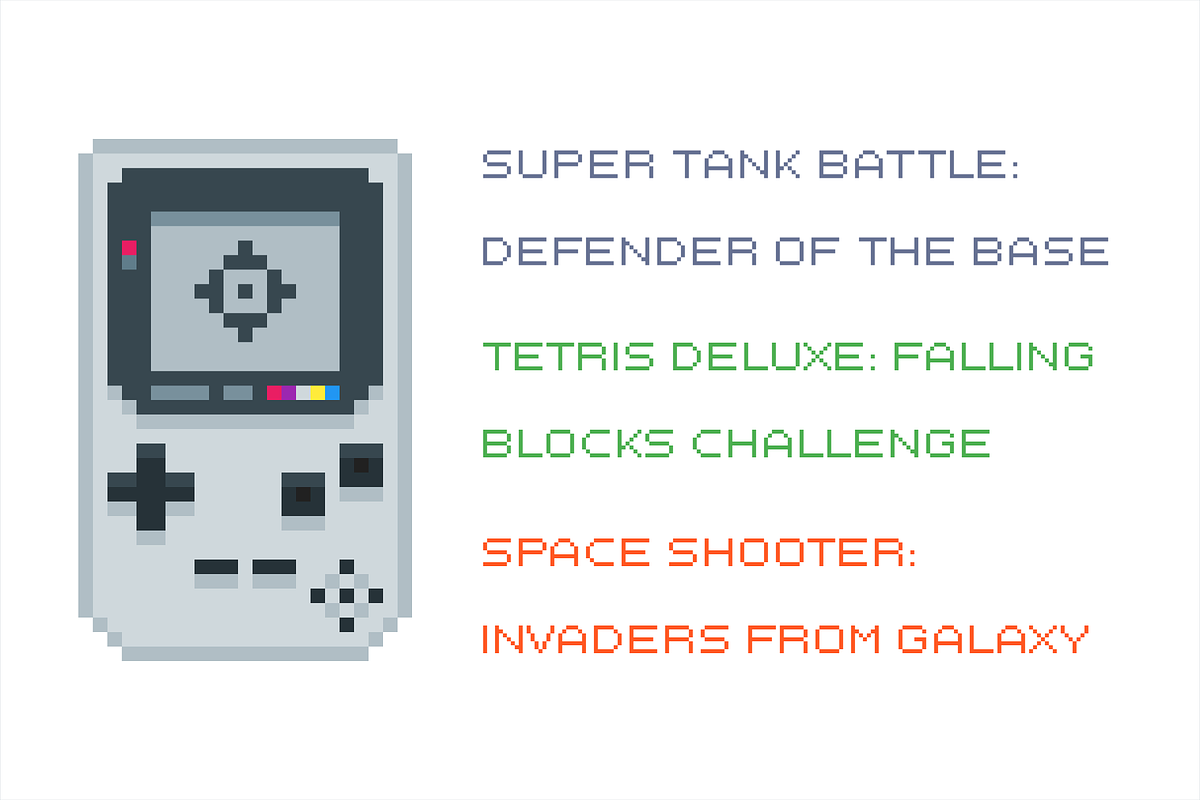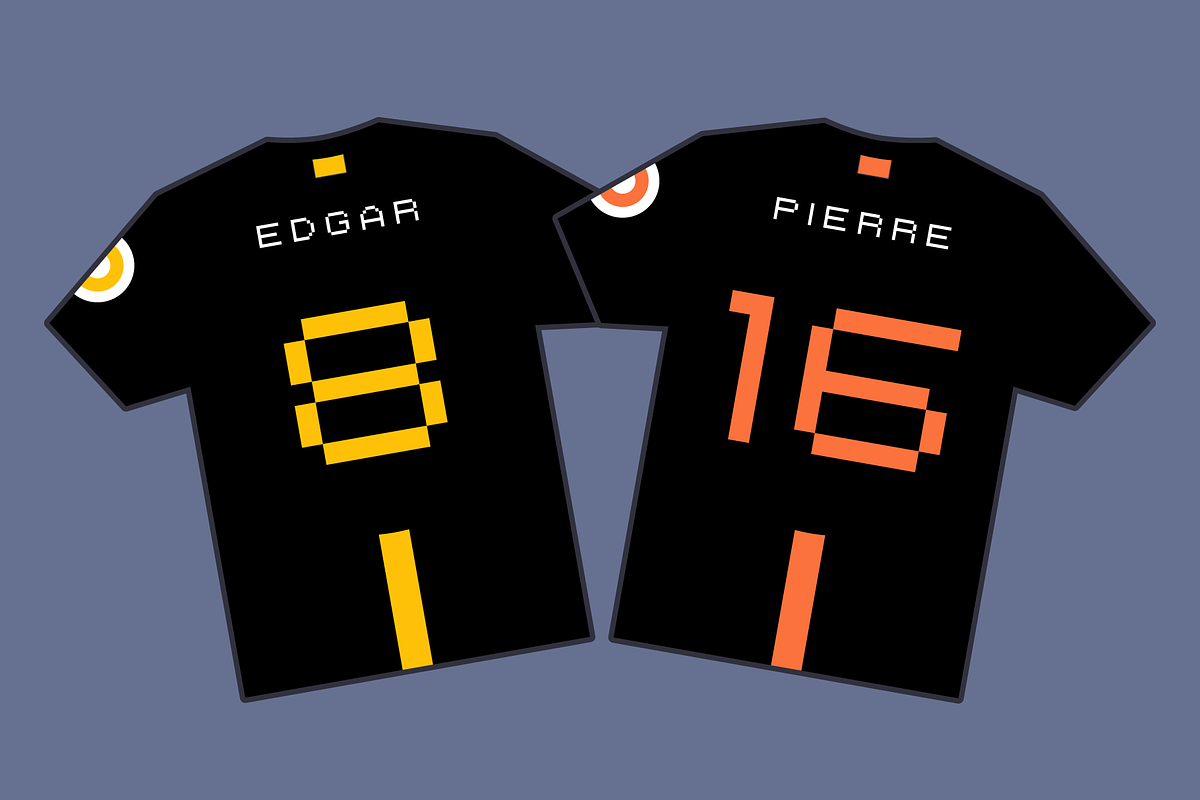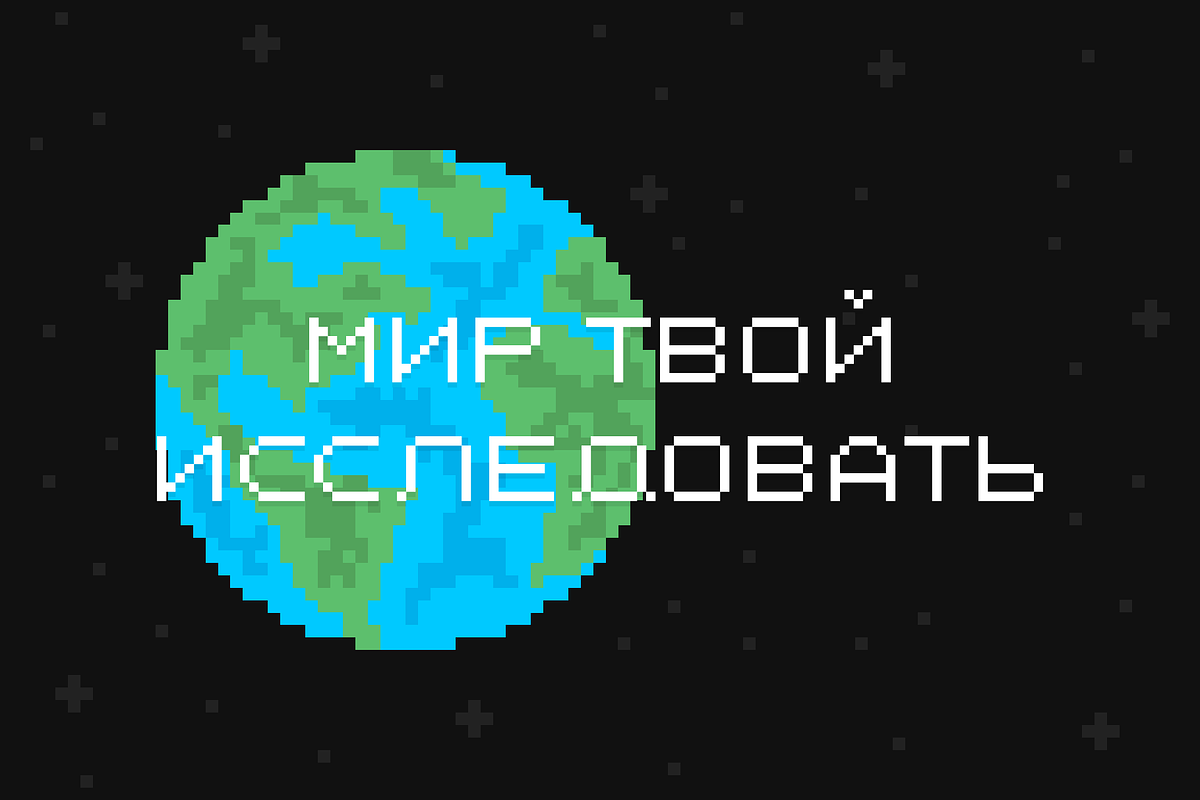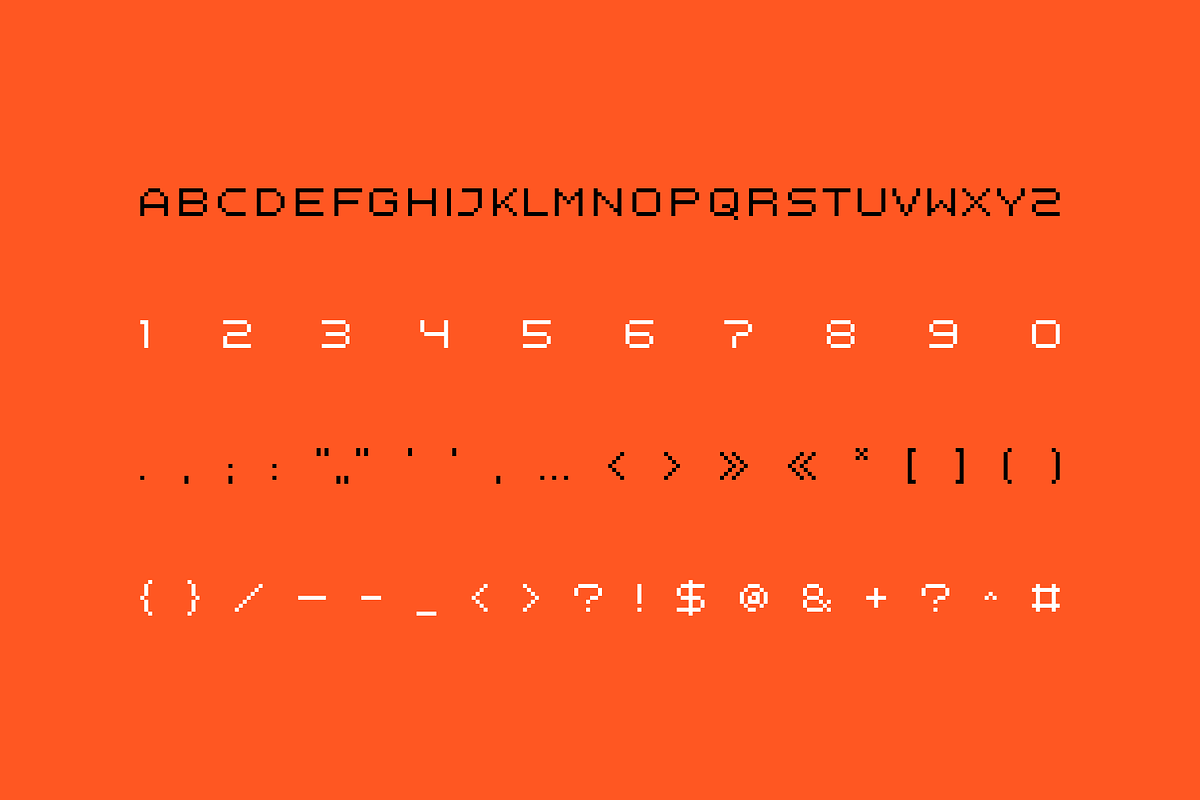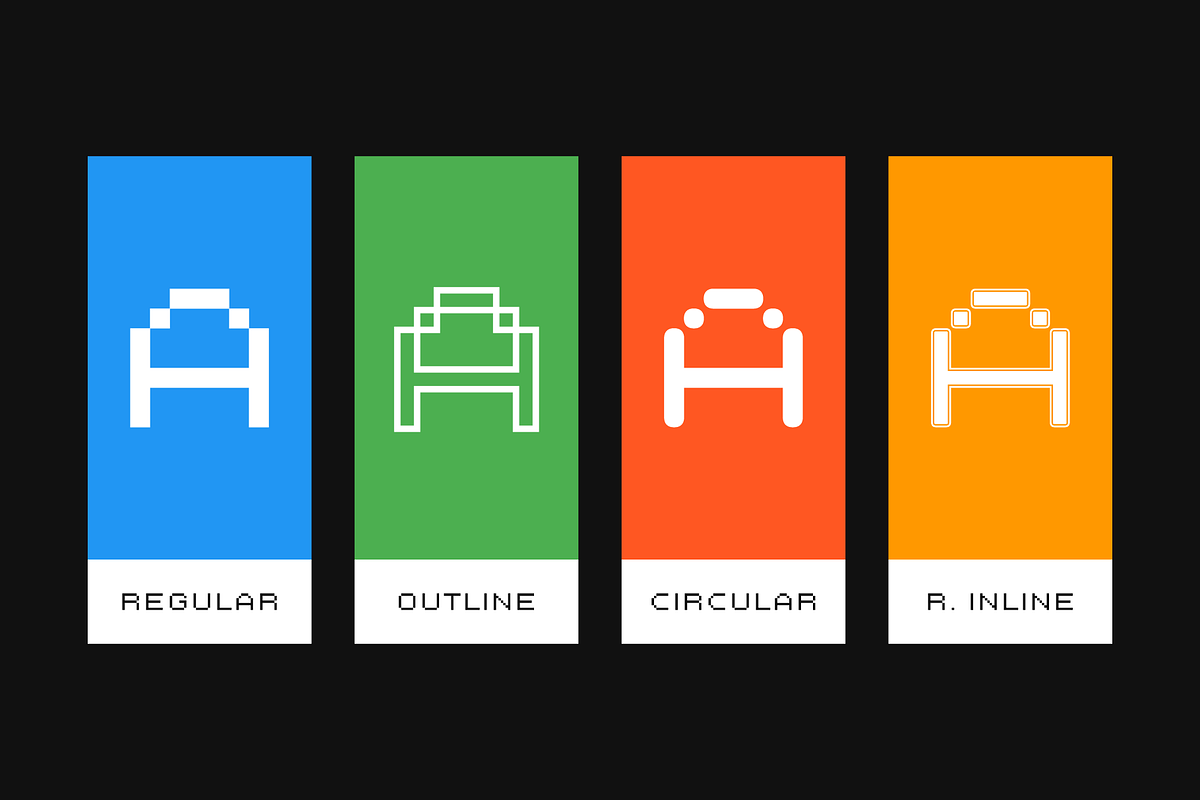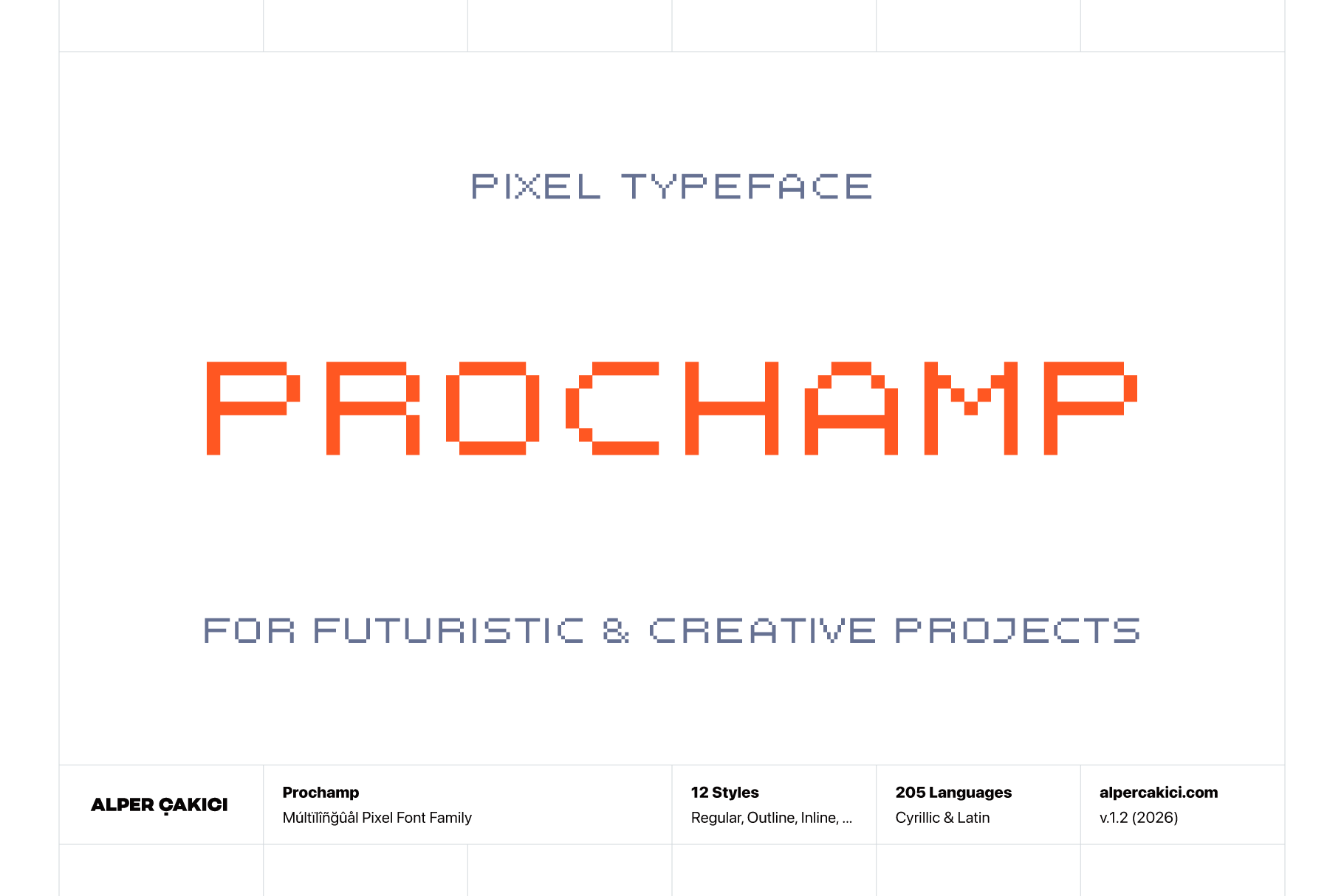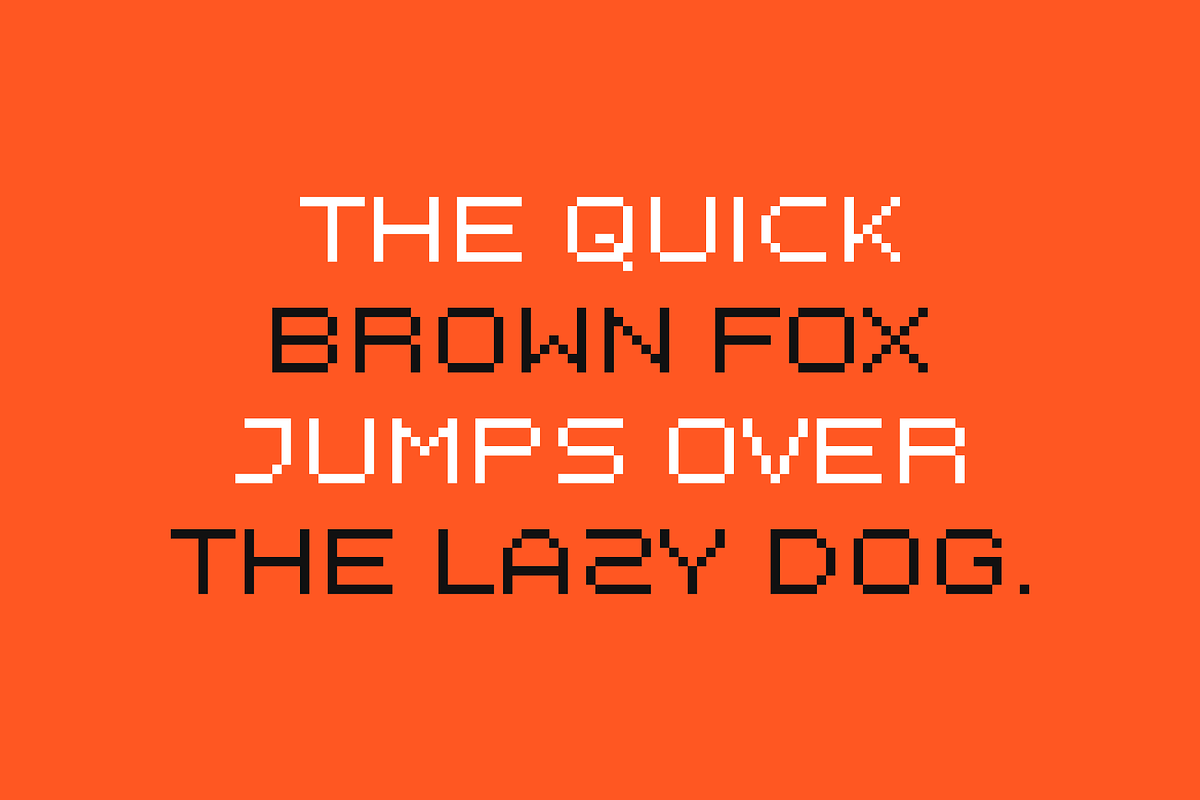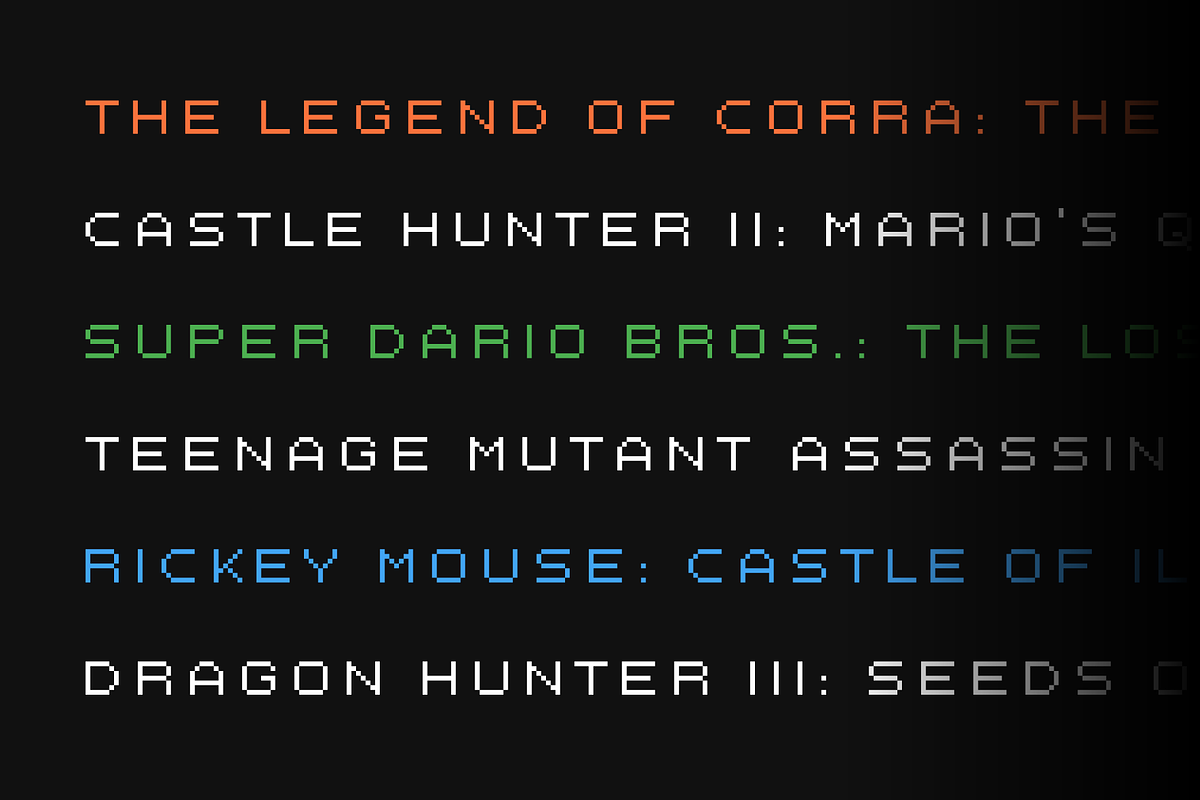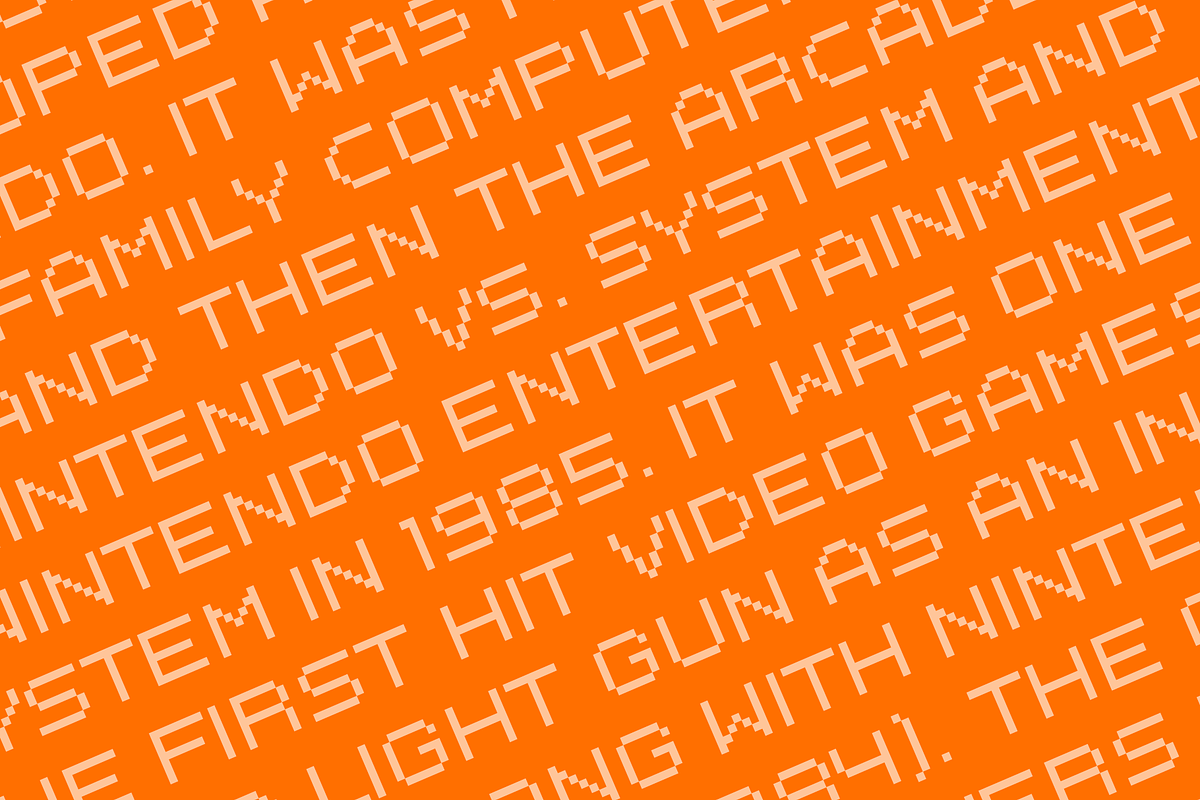
Prochamp - Pixel Typeface
Prochamp is a pixel-inspired display typeface that brings a bold arcade aesthetic to contemporary typography. Built around a distinctive geometric pixel structure, Prochamp combines nostalgic screen character with a versatile set of styles designed for both digital and print applications.
The family includes 12 styles, ranging from the clean Prochamp Regular to expressive Inline, Outline, Shadow, Circular, and Rounded variations. These styles make it easy to create everything from compact retro headlines and game-inspired graphics to energetic branding, posters, packaging, editorial displays, logos, interfaces, and other attention-grabbing typography.
Prochamp is designed with screen and print use in mind, delivering a strong visual presence at display sizes while maintaining the recognizable rhythm and construction associated with pixel lettering. The varied styles can be mixed within the same design to create layered, dimensional, outlined, or decorative typographic compositions.
The family includes 510 glyphs and supports an extensive range of Latin and Cyrillic-based writing systems, covering 205 languages. Its language support includes major European languages as well as numerous regional, minority, historical, constructed, and indigenous languages. Latin-script coverage includes languages such as English, French, German, Spanish, Portuguese, Italian, Polish, Czech, Slovak, Romanian, Turkish, Vietnamese-style Latin needs where supported by the glyph set, and many others. Cyrillic support includes localized forms for Bulgarian and Serbian, along with Cyrillic-related Latin transcription coverage.
Prochamp also includes OpenType features for language-sensitive typography. Contextual and localized substitutions provide appropriate character forms for selected languages, while combining-mark handling improves the behavior of accented characters. The family also includes an ordinal feature for automatic number-and-symbol substitutions where supported by the application.
With its combination of pixel geometry, multiple decorative styles, extensive language coverage, and screen-and-print versatility, Prochamp is suited to retro gaming projects, esports graphics, posters, album artwork, packaging, titles, signage, branding, social media graphics, websites, UI concepts, and any project that needs a strong digital-era display voice.
Family: 12 styles Glyphs: 510 Language support: 205 languages Scripts: Latin and Cyrillic Classification: Pixel / Display Optimization: Screen & print